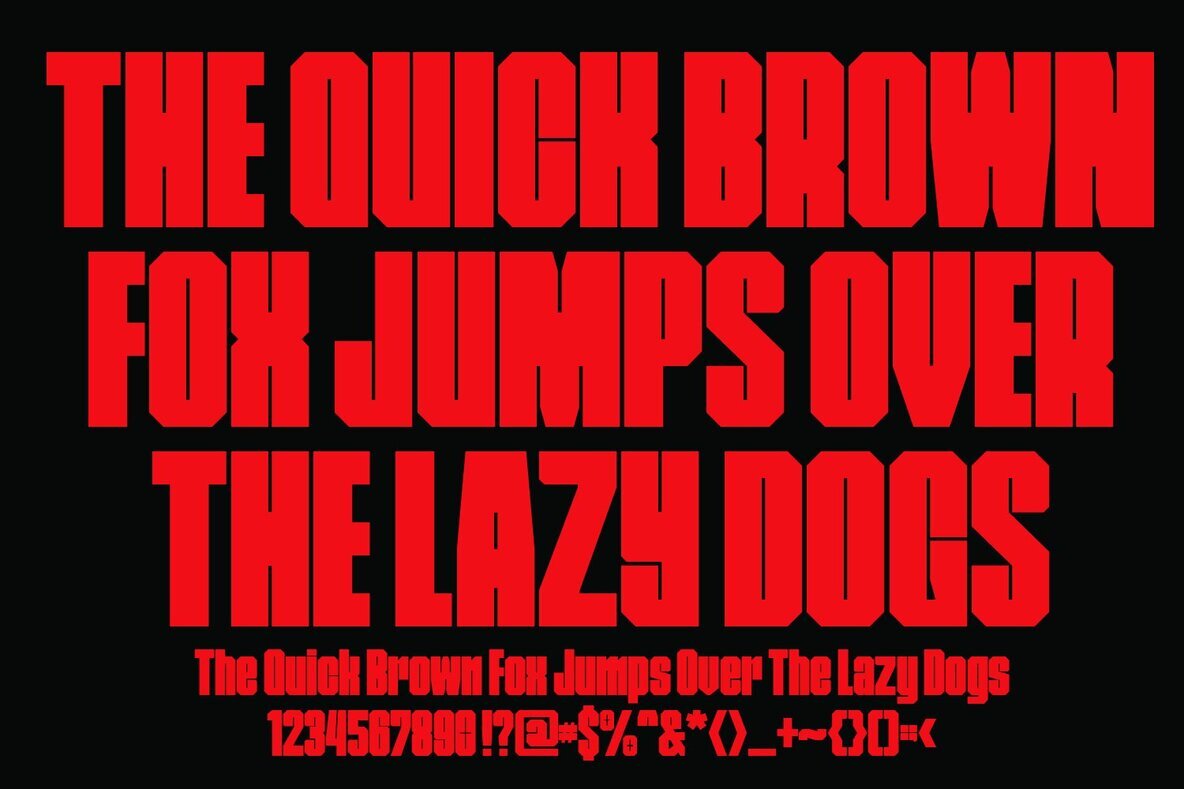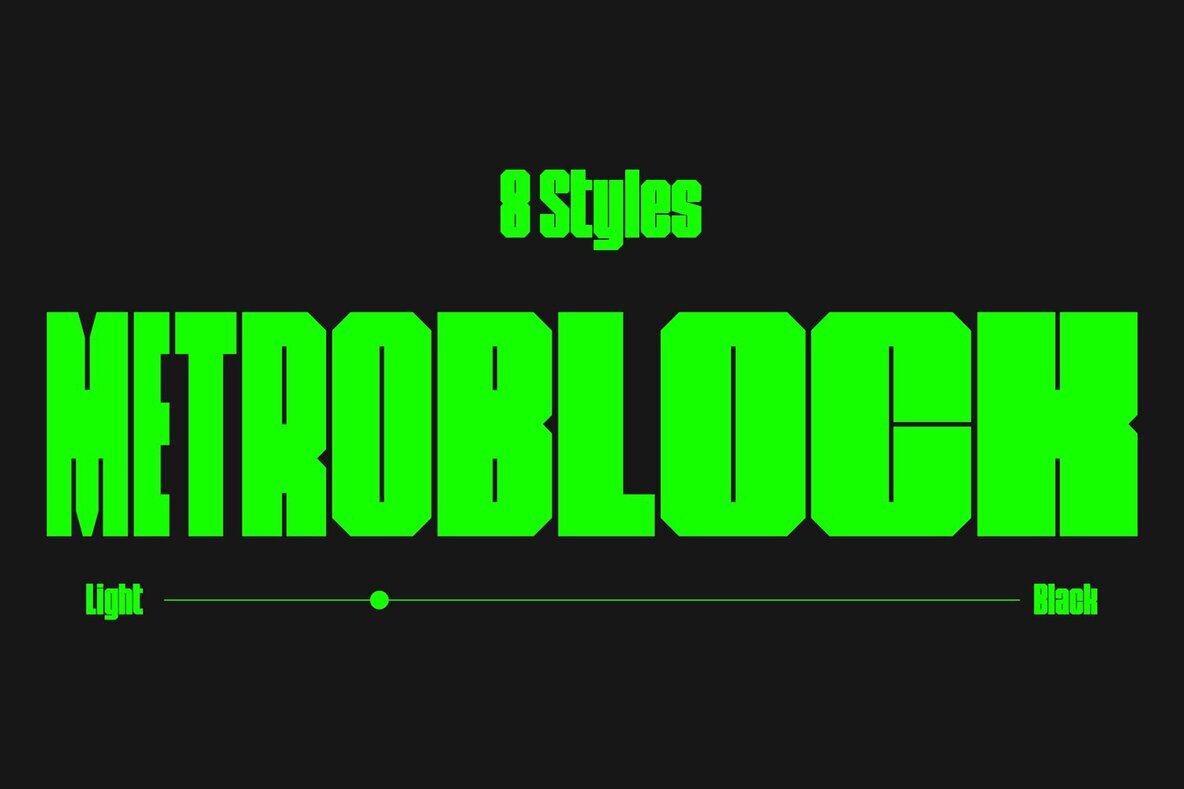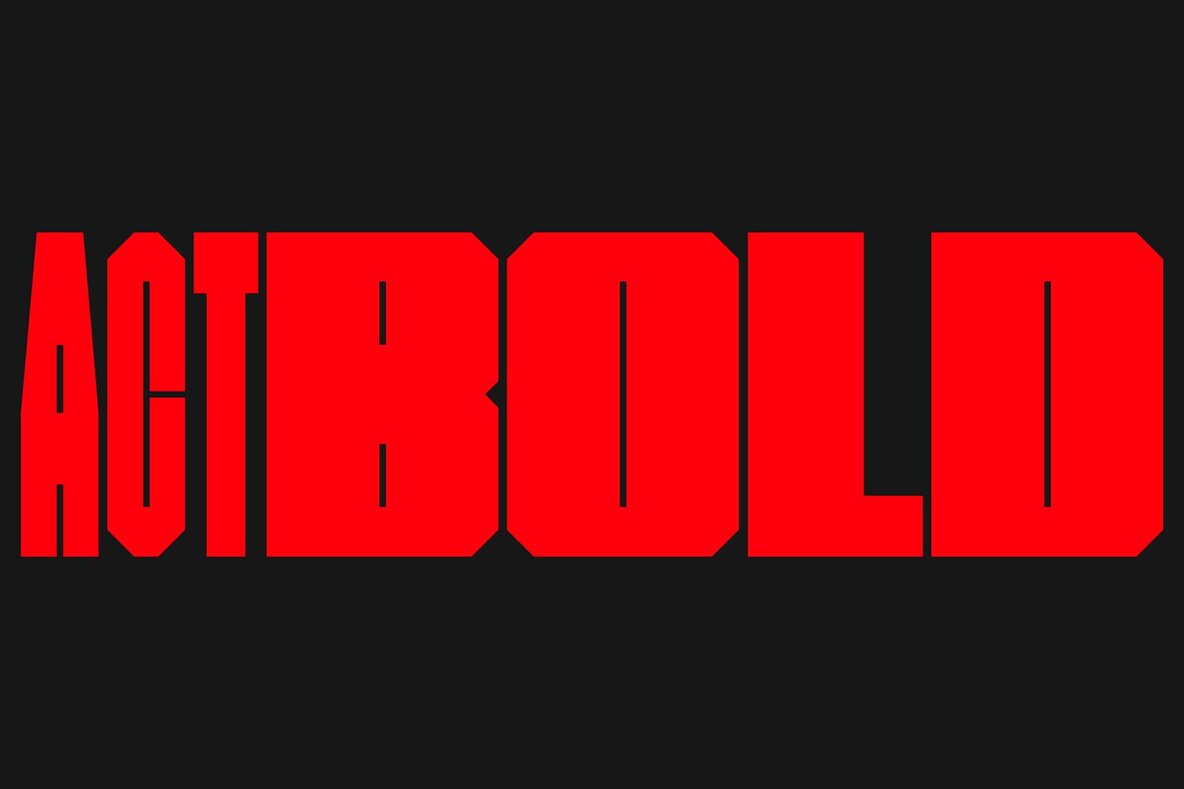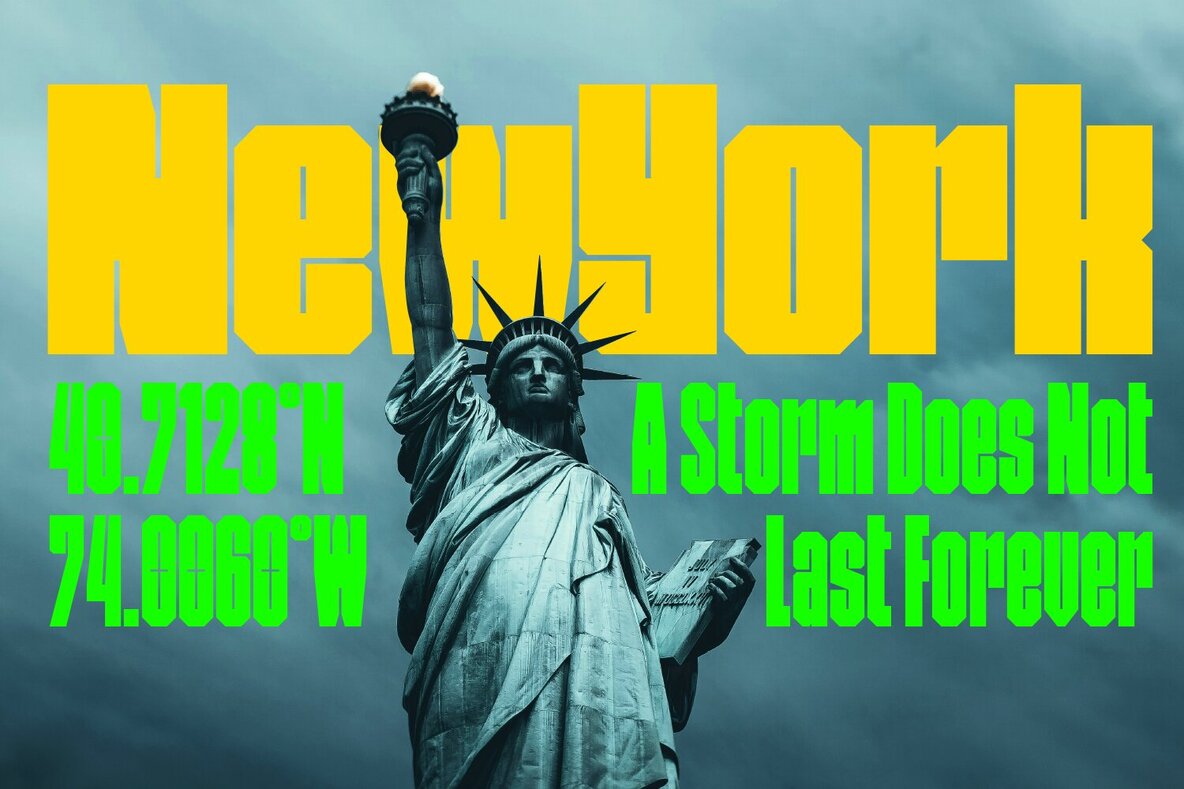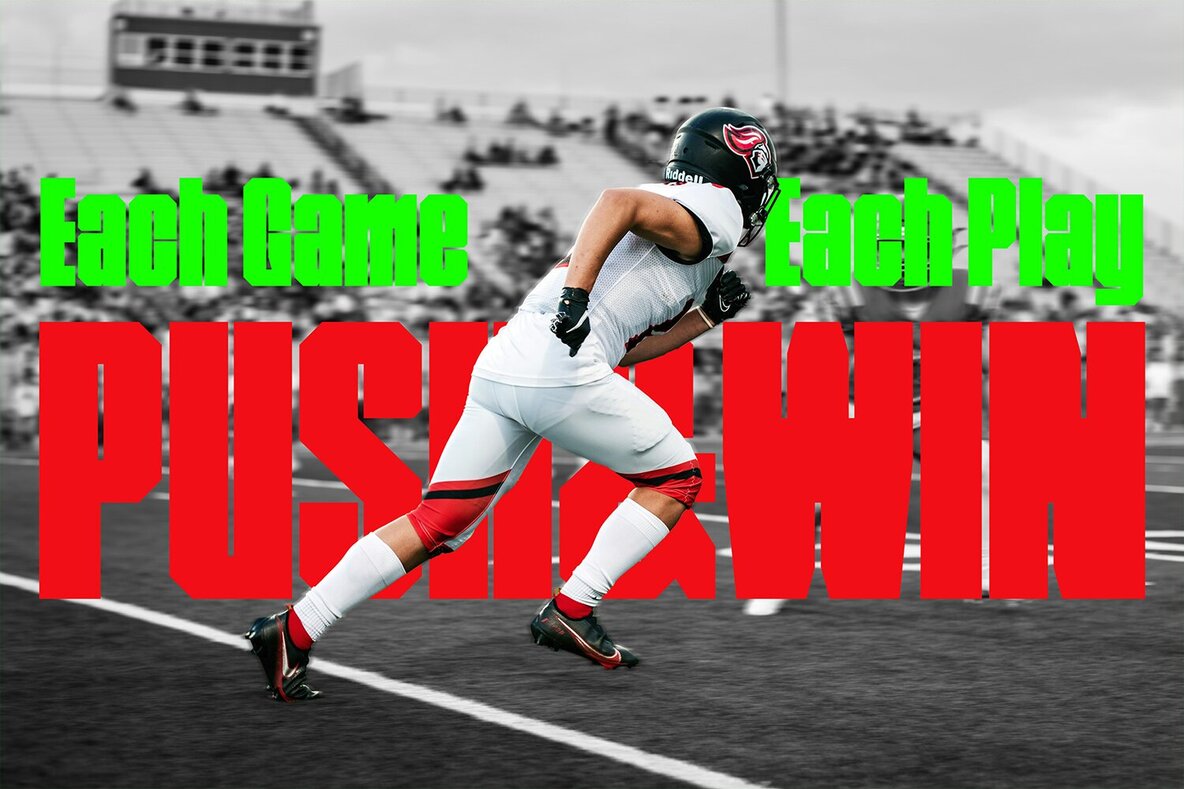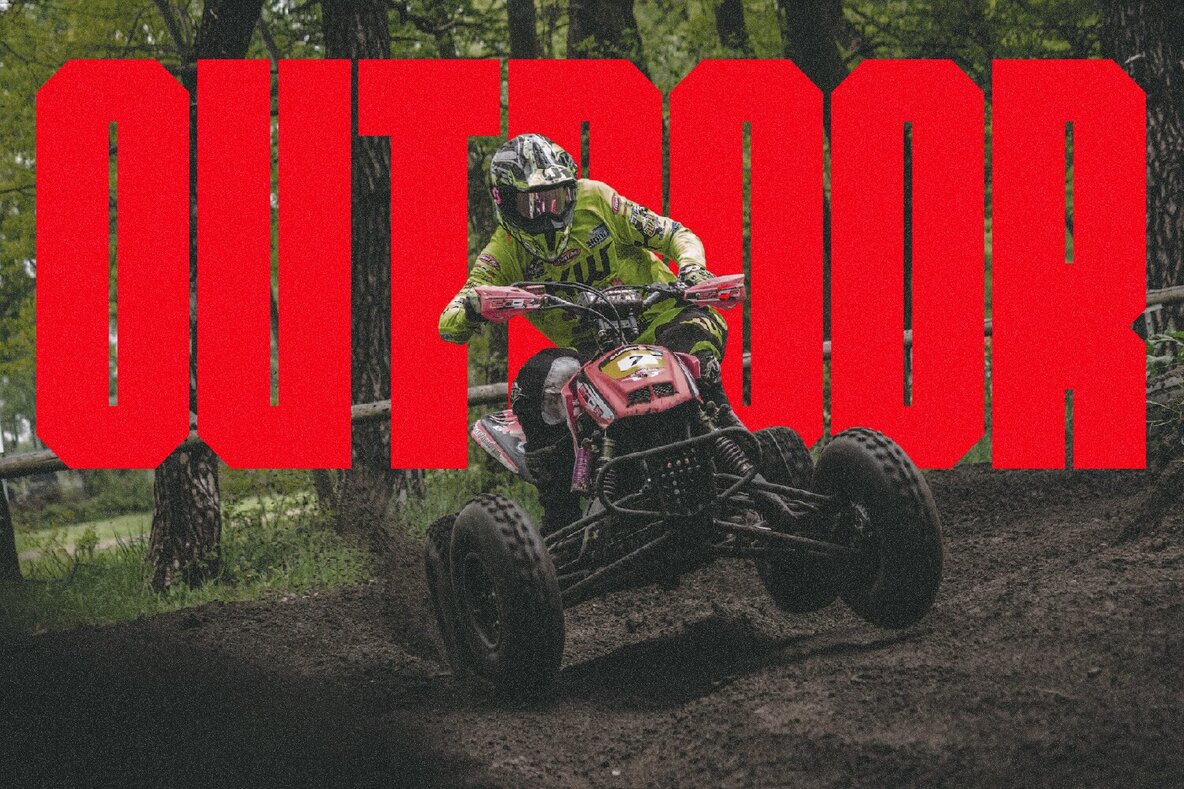
Metroblock Font
MetroBlock is the simple and bold display font for any of your projects. A bold appearance makes impactful typographic applications. Metroblock comes in 8 styles, with a wide range of styles ideal for sports, headlines, titles, signage, branding, and strong designs that require a big impact.